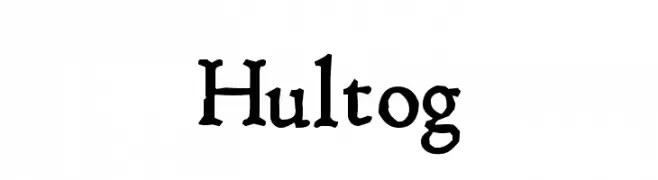
( Fonts by Cumberland Fontworks - http://www222.pair.com/sjohn/fonts.htm - S. John Ross )
A rustic, hand-drawn font with bold, uneven strokes and a whimsical style.